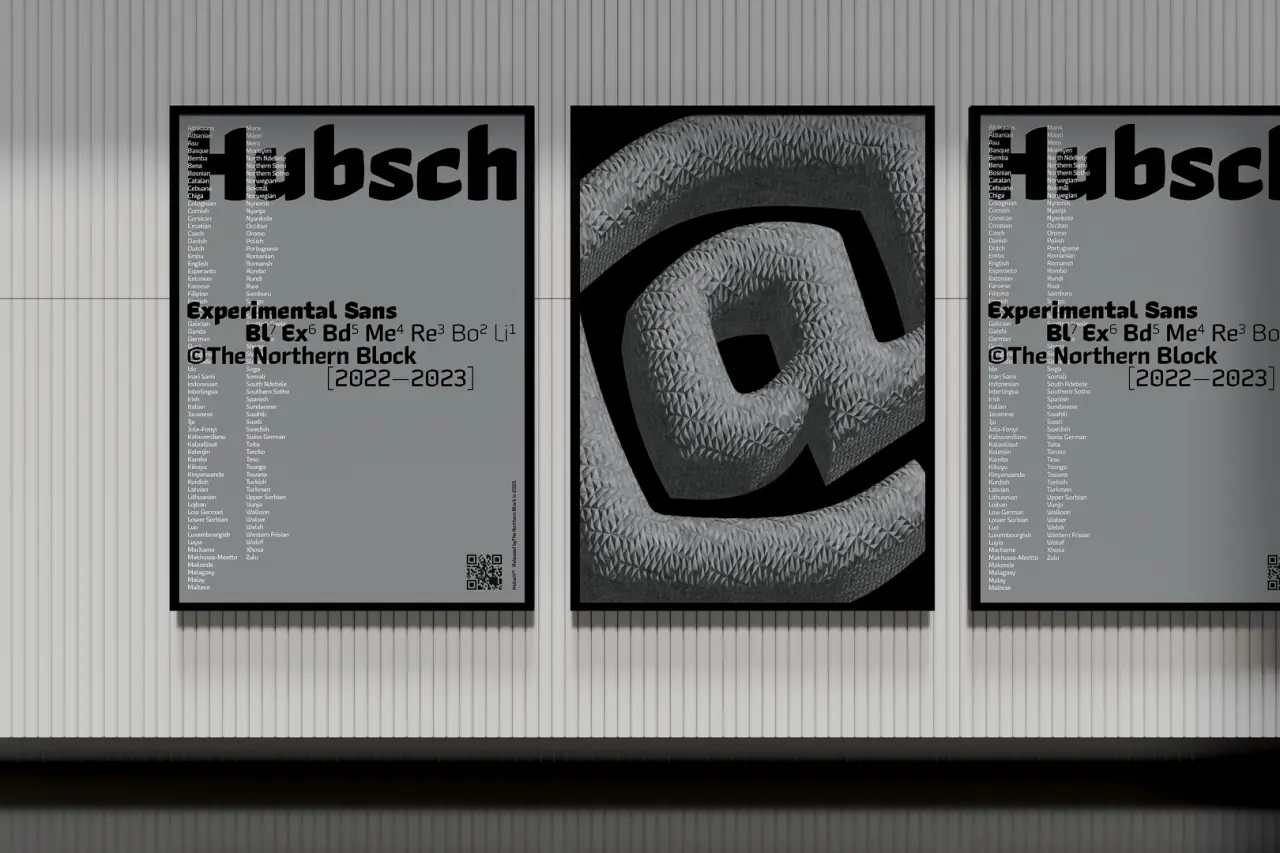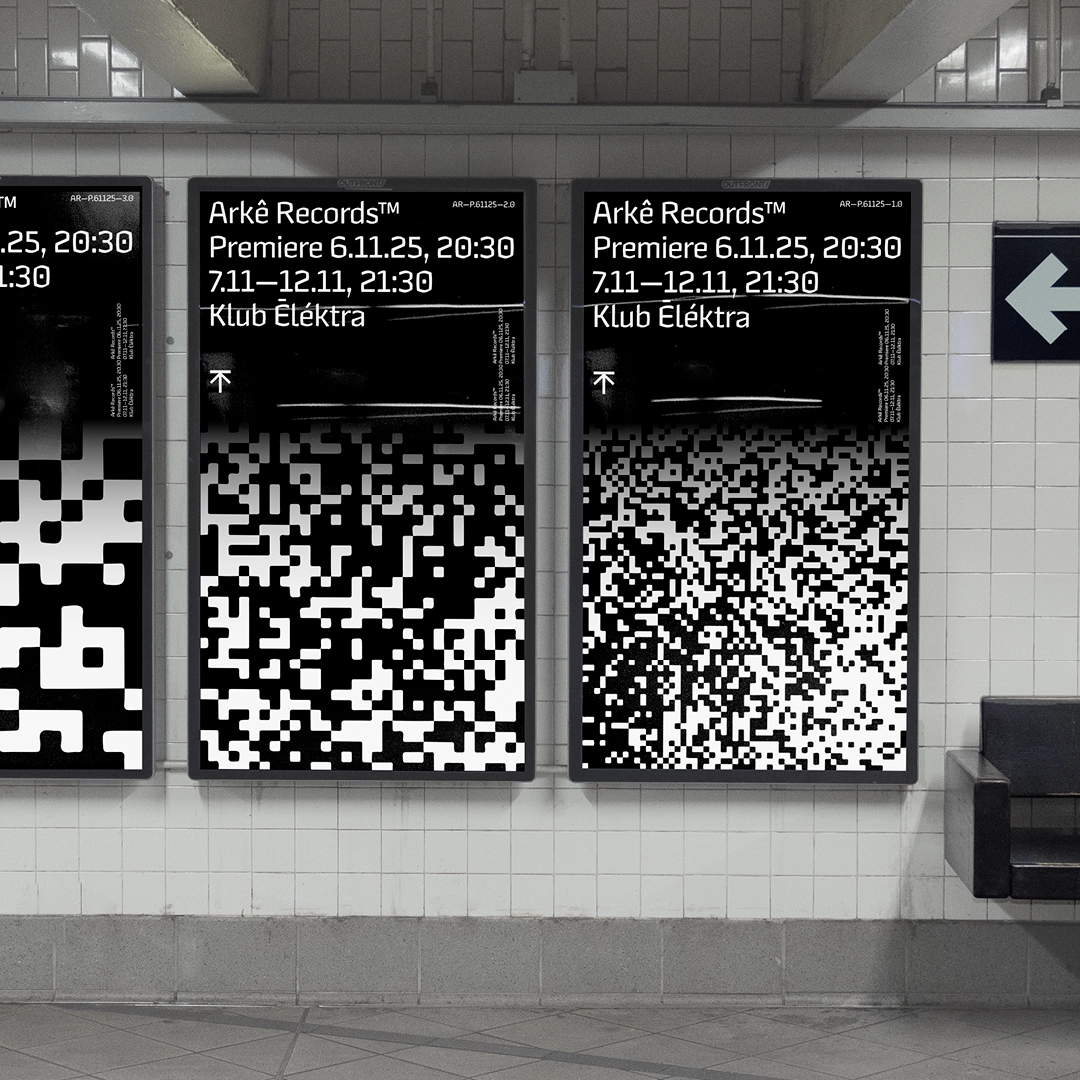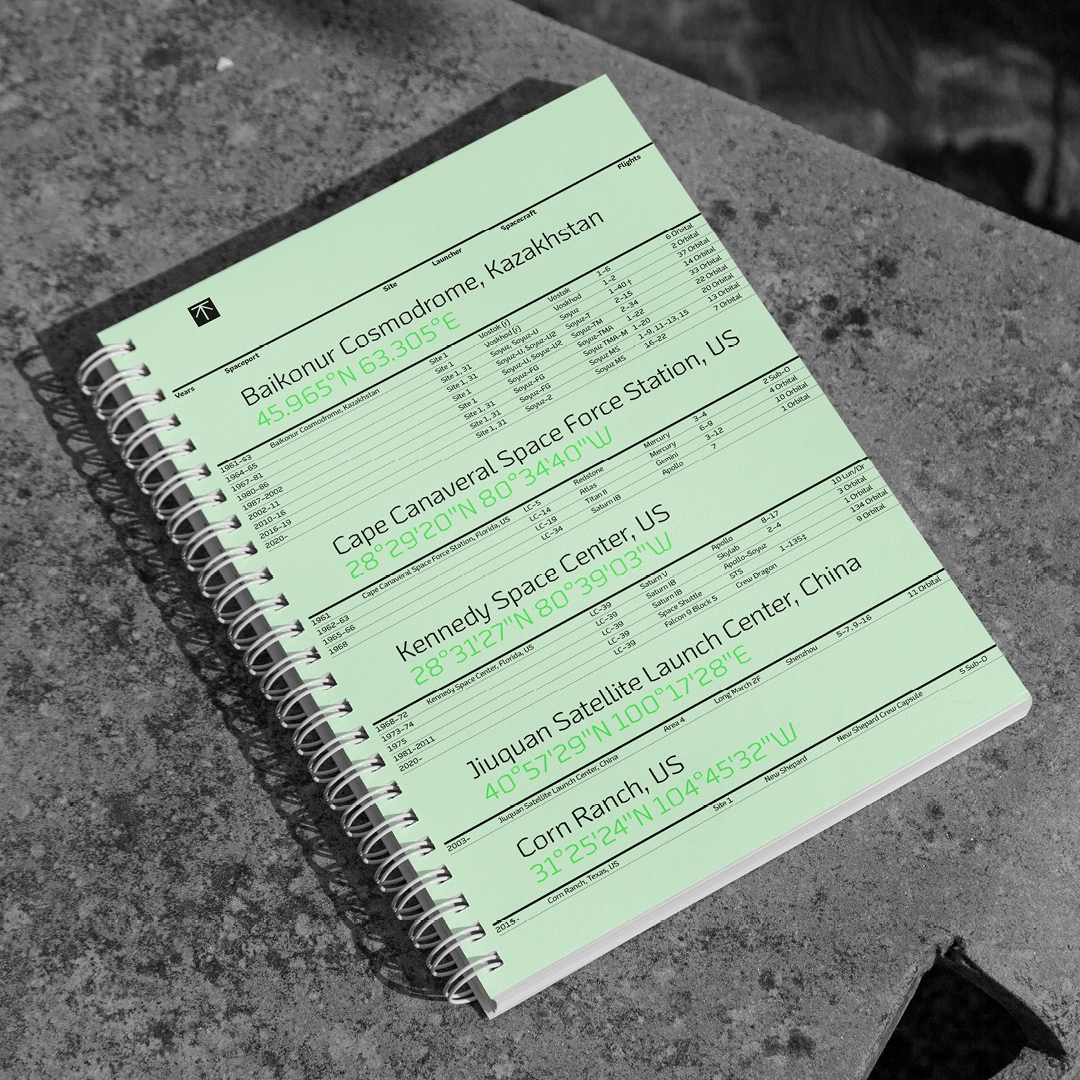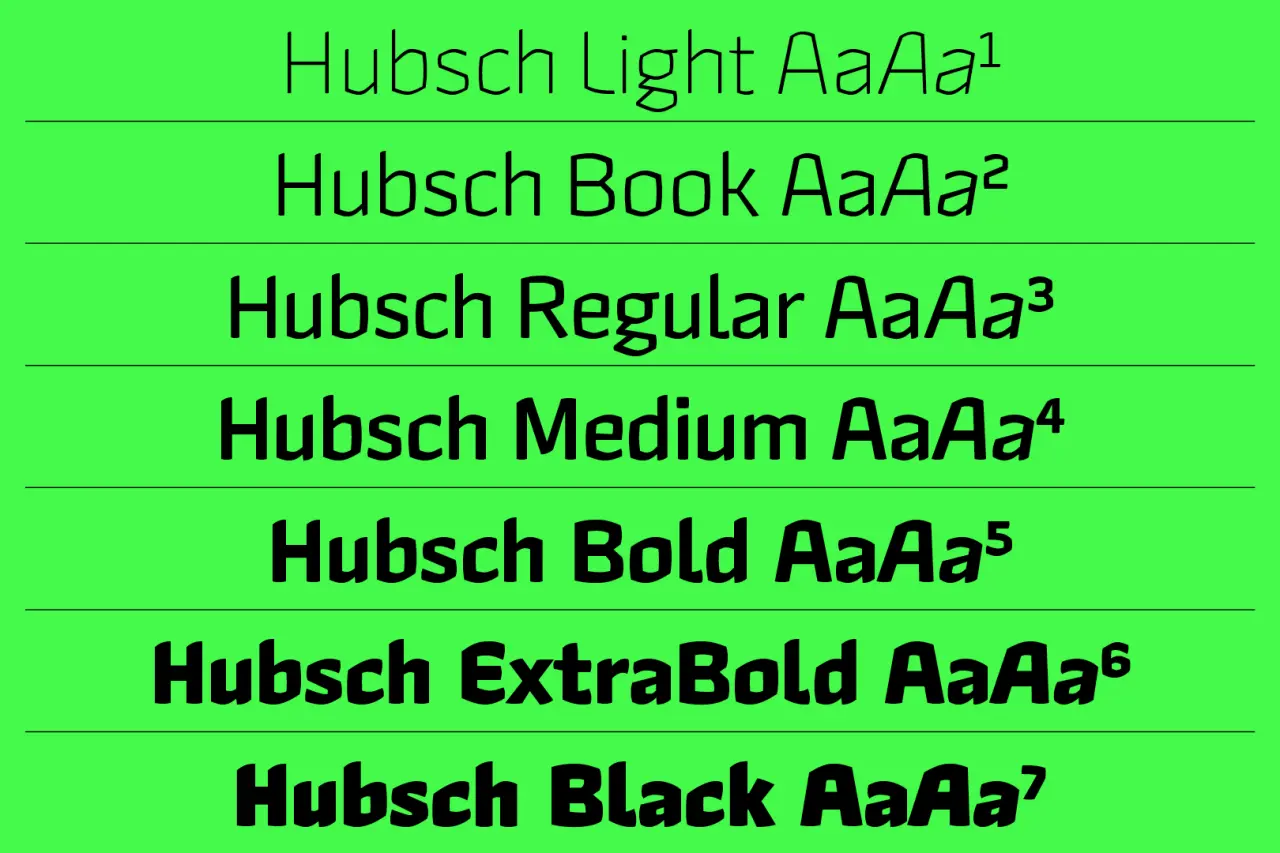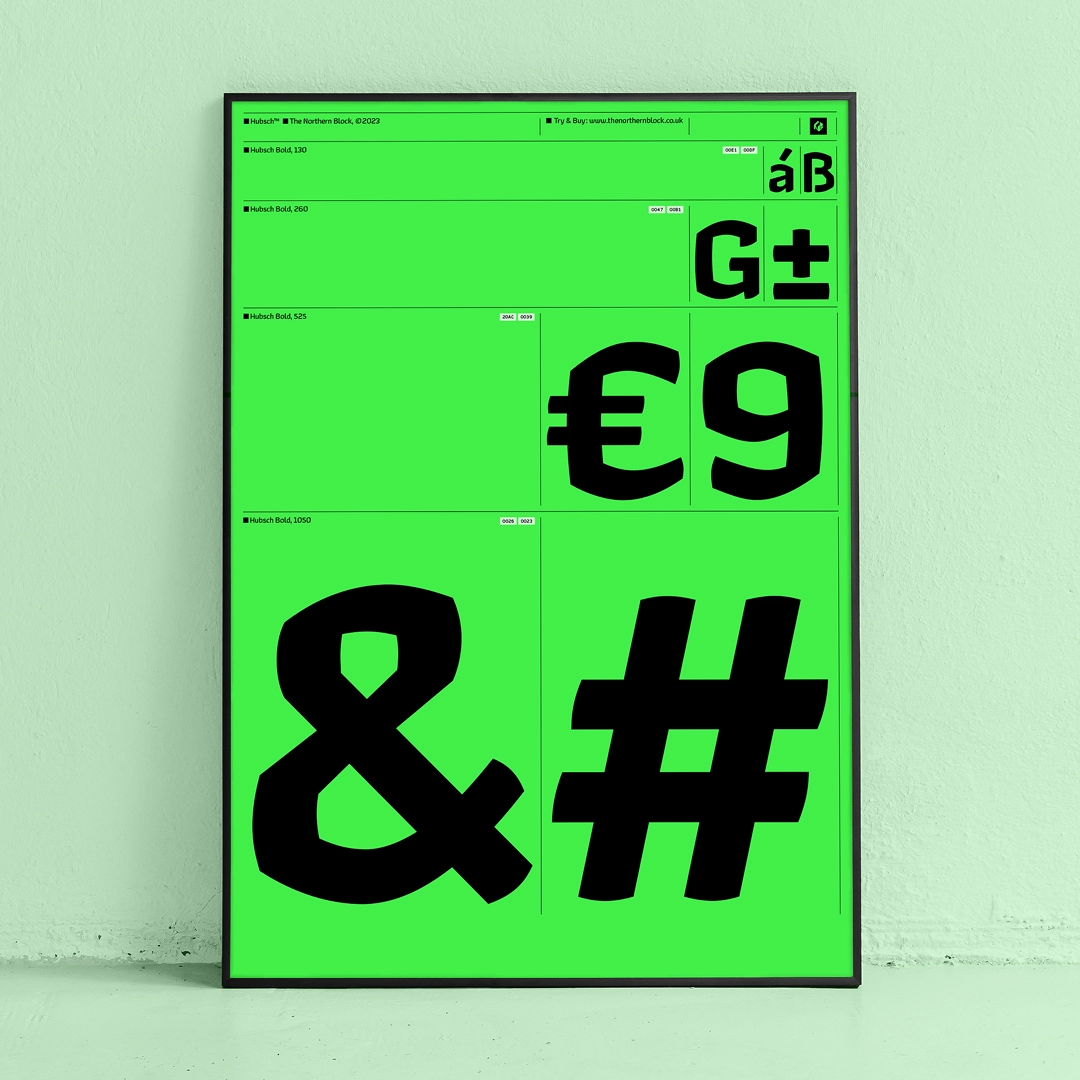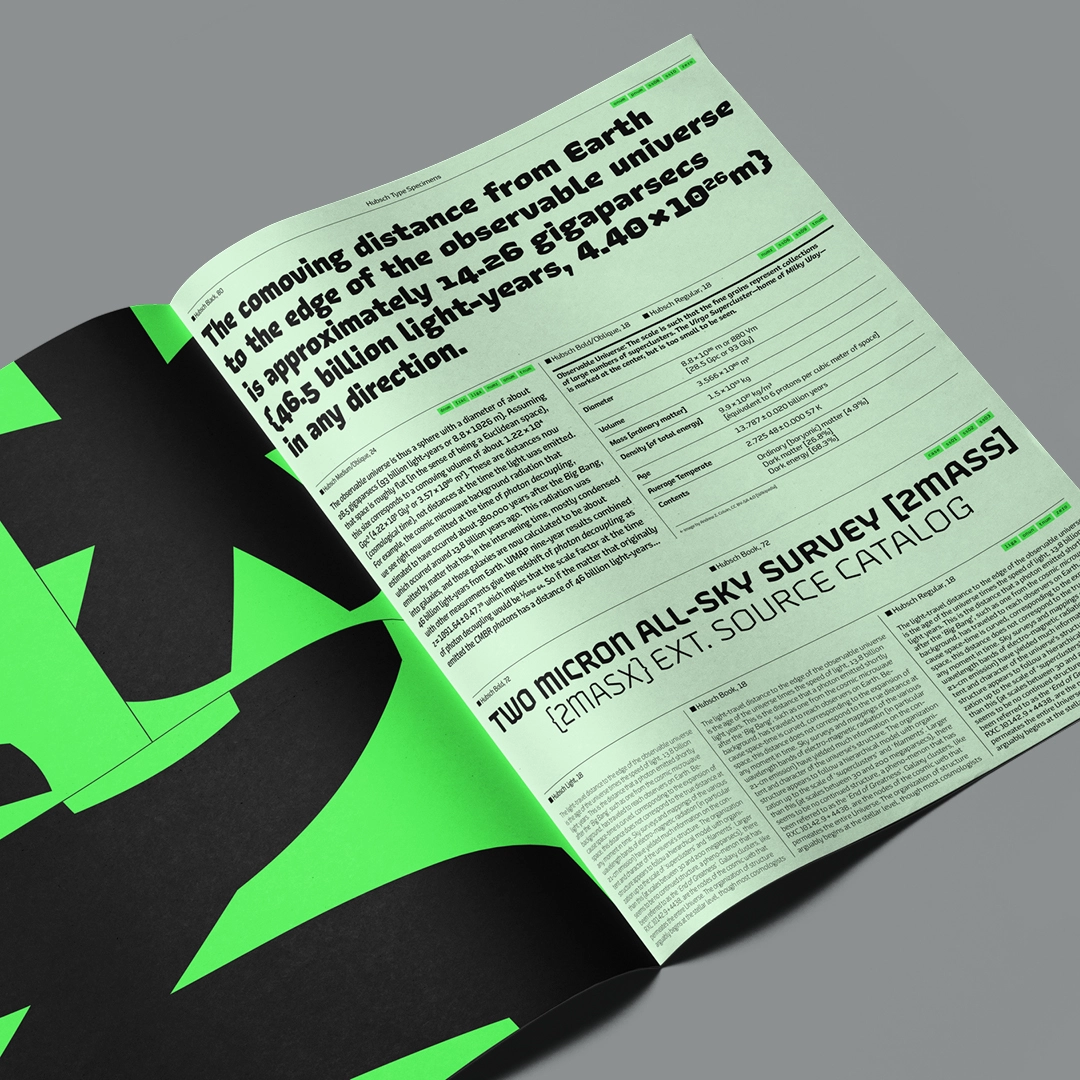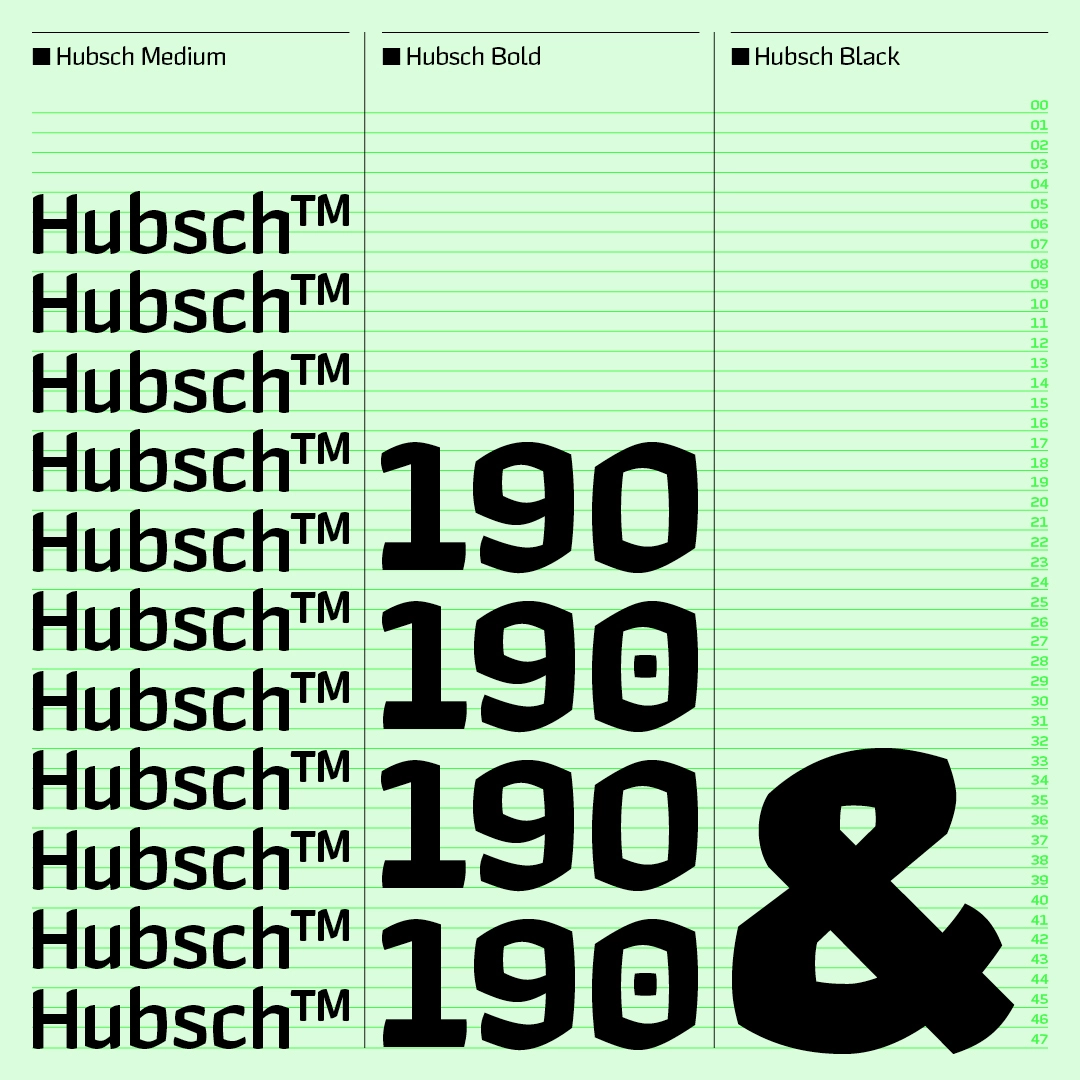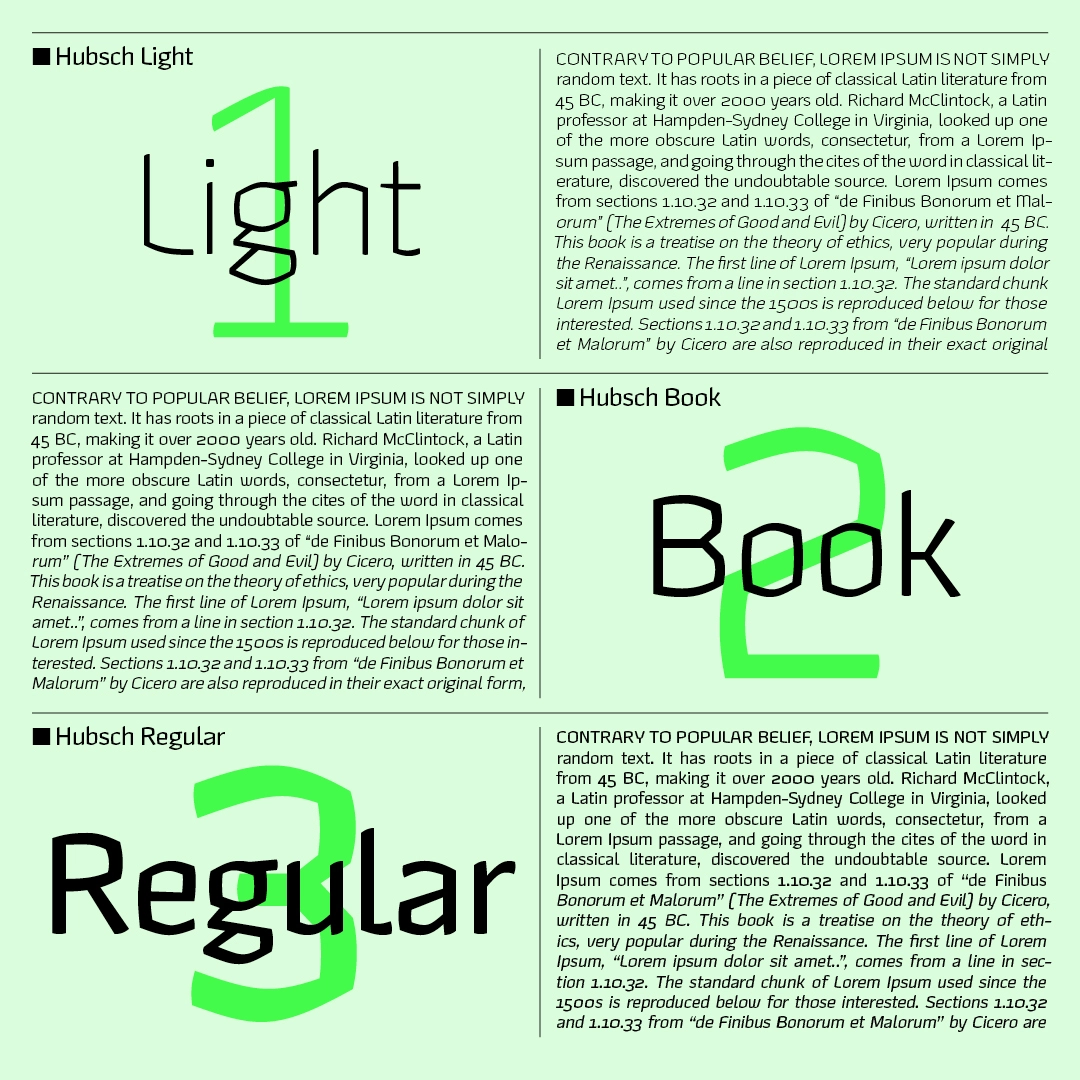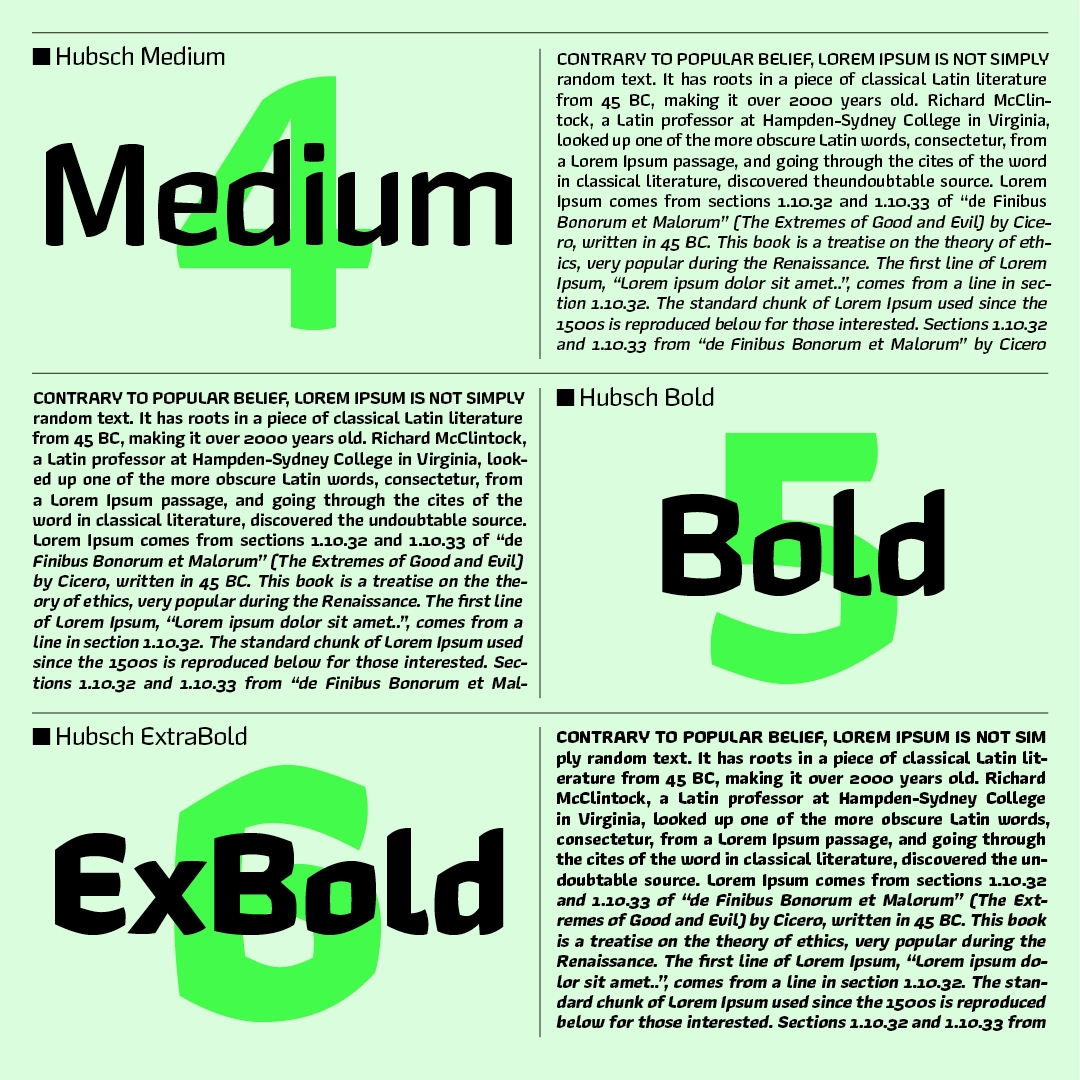
Northern Block shares its love for the marker pen with new experimental typeface, Hubsch
Designer Jonathan Hill discusses the development of Hubsch and how designers may wish to use it.
At Creative Boom, we're always on the lookout for new typefaces, and we're especially interested to see foundries take an experimental approach. There's no point in just being wacky just for the sake of it, though: there has to be an underlying, original idea or goal if you want to push typography forward. And here's a project that fits right into that wheelhouse.
Hubsch is a new experimental typeface from The Northern Block, an award-winning, independent type foundry based in north-east England. And it's inspired by nostalgia and the evolution of the marker pen: two things we can definitely get on board with.
Designed by Jonathan Hill, the sans-serif face pays homage to the marker pen's journey through time and its different forms of expression in street art and graffiti, particularly the work of Keith Haring, and then later with the rise of Banksy.
Armed with a rich melting pot of ideas from historical references and his fascination with artists who draw with marker pens, Jonathan's experimental typeface began its journey with his memory of watching Tony Hart from the children's BBC show Take Hart (1977-1983) drawing with a chisel tip marker.
The smell and sound of the marker pen moving across the surface took him back to his childhood, and just as Hart embraced the pen's movement and accepted its destination, Jonathan took the same approach with Hubsch.
Background
Hubsch includes seven weights with obliques and over 600 characters per style and is available as a variable font. Language support covers Western, Southern, and Central Europe.
It's built on the principles of modernist fonts that are fit for use with new technology, including a variable font version. This typeface pushes experimental boundaries with its organic hand-drawn aesthetic. It is not just about nostalgia; it refers to joy and the fundamentals of introducing this handwriting to typeface markets.
Whilst Hubsch is experimental, its underlying construction is based on simple optical rules that merge bold, unapologetic marks of the pen with digital precision to create a balance that grounds the letters to the grid. Neither hand-drawn nor digital components dominate; they occupy the same space as piano keys.
Importantly, the foundry is keen to point out that this is not a Blackletter font. Hubsch follows its own set of rules with logic, organised with absolute values to make the aesthetic modern and fit for purpose.
Used at small sizes, it's designed to be a reading pleasure, while at large sizes, it shouts out in a visually pleasing way.
Use in design
Pigeonholing this font, though, isn't easy: its free-flowing marker nib-to-square angles put this experimental typeface into a mixed-use category. In other words, it would sit just as comfortably at home in a video-game interface as it would in concrete for a piece of public architecture.
Hubsch finds its mark of distinction in the balance between the marker pen's handwritten forms and the constraints of a pixel grid. Convex curves flow in a subtle direction but are not utterly rounded, so the aesthetic feels both technical and hand-crafted in the same measure.
The name, by the way, derives from the nickname of 14th-century printmaker Martin Schongauer. When spelt with an umlaut (i.e. Hübsch), it means pretty in German. This adjective also indicates how well the letters fit visually with their straight and curved sides.
Pushing the boundaries
While Jonathan is best known for designing modern geometric sans, Hubsch offered him greater freedom to push boundaries into experimental territory he had not entered for a while.
"I really enjoyed how the marks made from a chisel tip marker are unapologetic," he says. "There is nowhere to hide; you must accept its path and embrace the mistakes. This is different to my previous project, Leida, a serif which we released earlier this year.
"I could only carry so much forward from Leida into Hubsch, knowing Hubsch would have a different creative approach," he adds. "The vision for Hubsch was clear from the start. The only thing in doubt was my ability to draw by hand, but as the process developed, the outcome for Hubsch became clear once I was satisfied with the drawings."